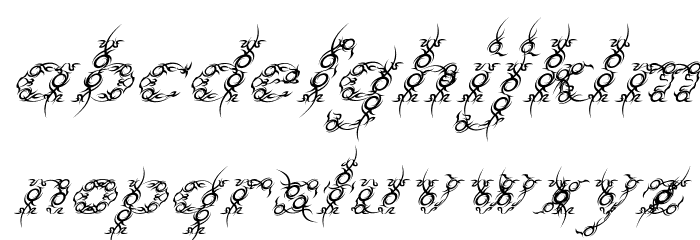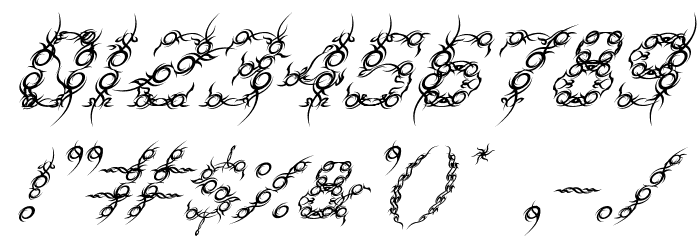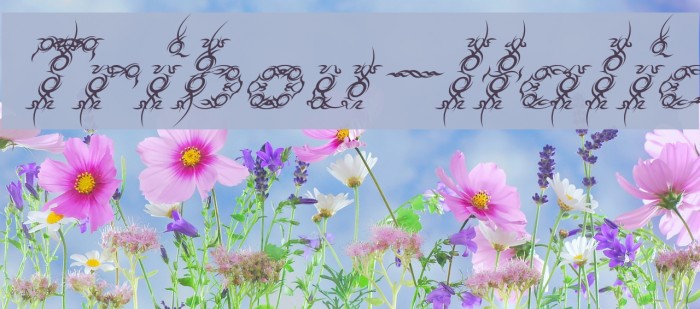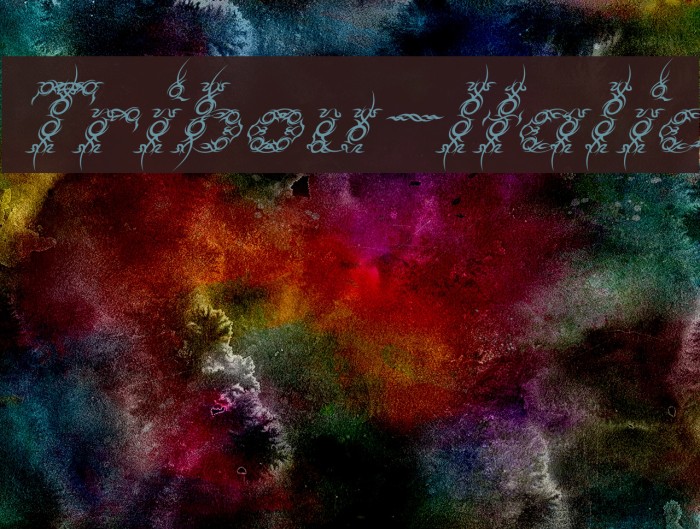
Tribou-Italic Font
This font features an intricate and decorative style, characterized by swirling, thorn-like embellishments that wrap around each letter. The design is highly stylized, giving it a unique, almost gothic appearance. The letters are italicized, adding a sense of motion and elegance. The font maintains a consistent level of detail across both uppercase and lowercase letters, as well as numbers and special characters. Its ornate nature makes it stand out, perfect for projects that require a dramatic and artistic touch.
An intricate, decorative italic font with swirling, thorn-like embellishments.
- Proposed Projects: Ideal for tattoo designs, gothic-themed posters, album covers, or any project requiring a dramatic and artistic flair.
- Use Case: Logos, Headlines, Artistic projects